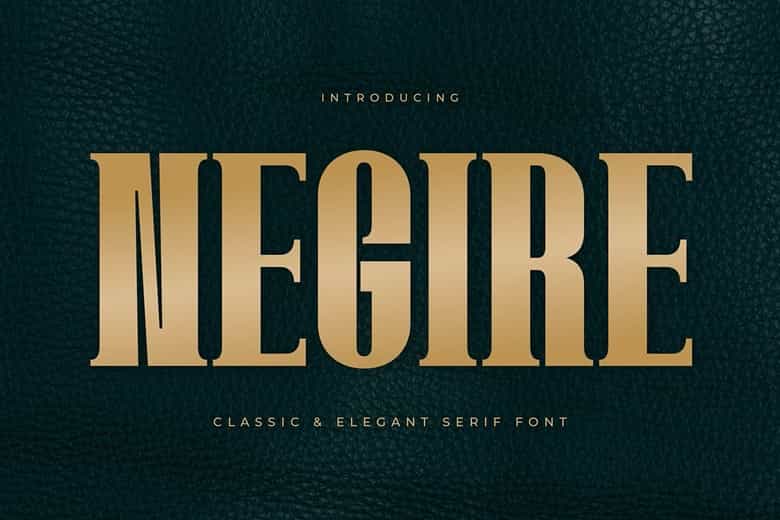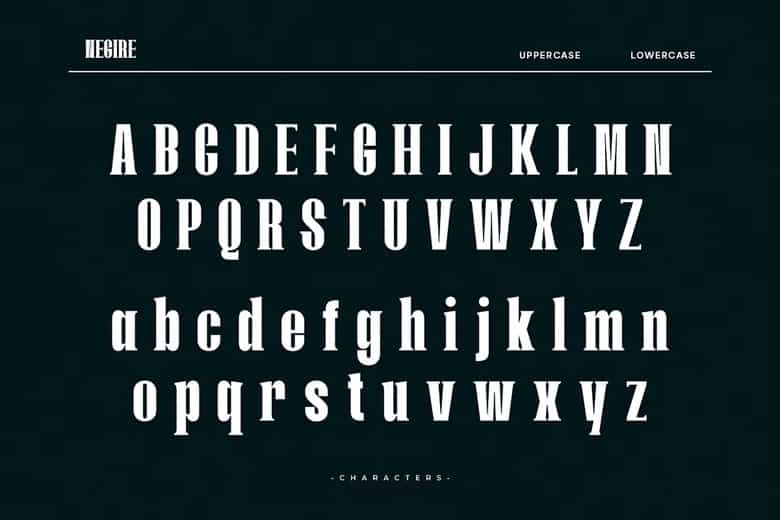
Negire is a beautiful contemporary serif font designed to produce luxury looks. It has elegantly contrasting, distinctive serifs and fluid proportions, and is well suited to high-end branding, editorial design and sophisticated visual narratives. Negire unites vintage typographical appeal with elegant innovative temper.